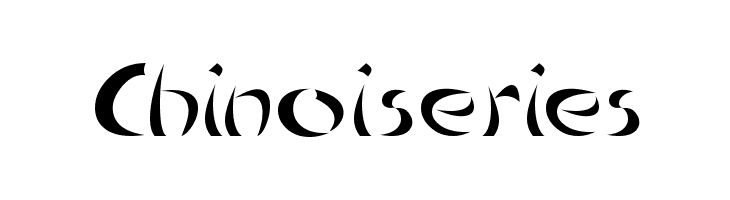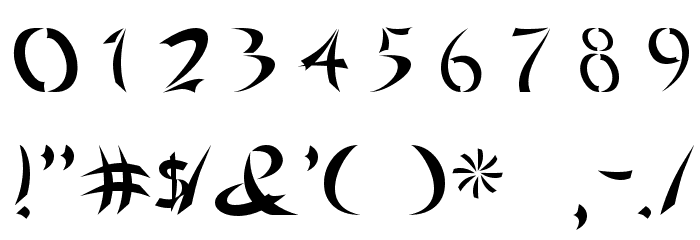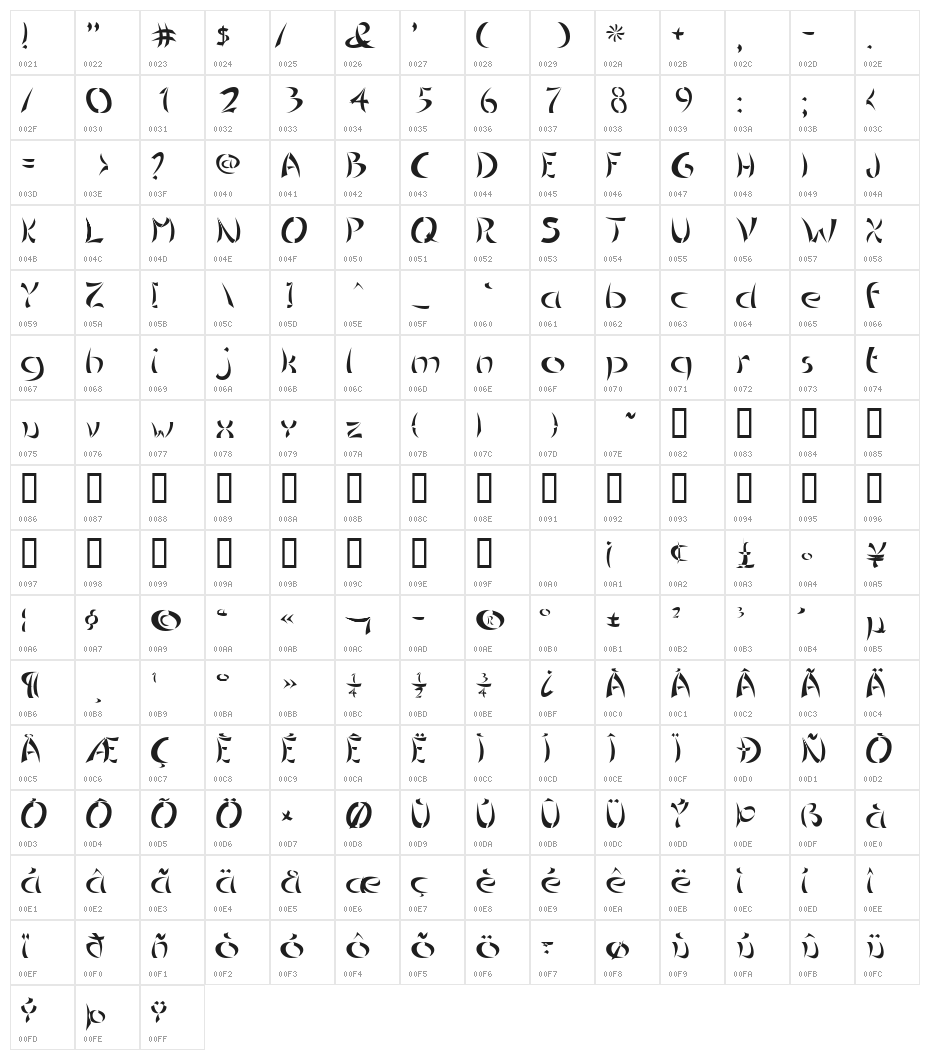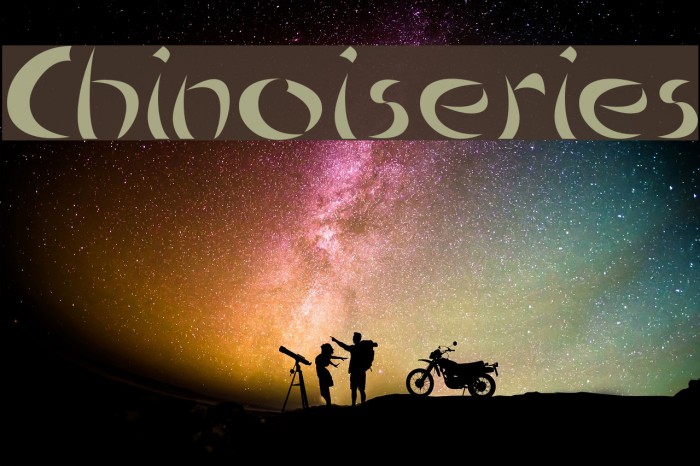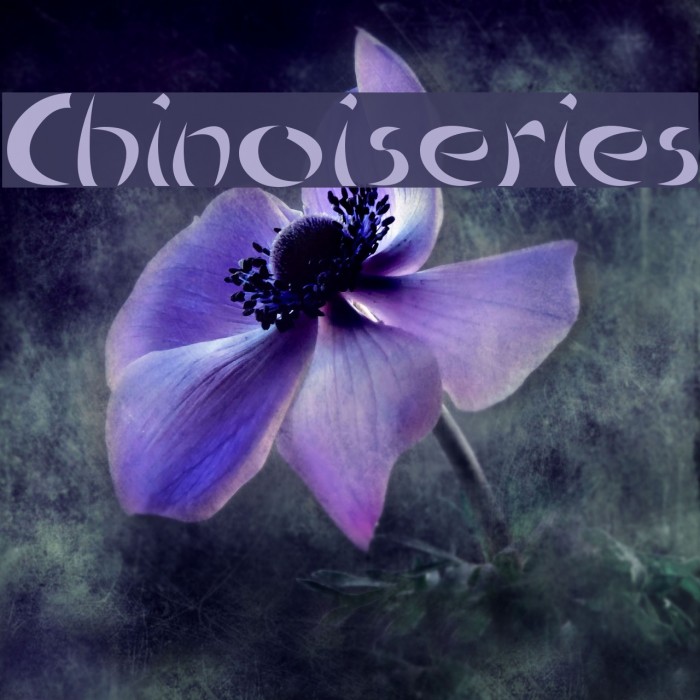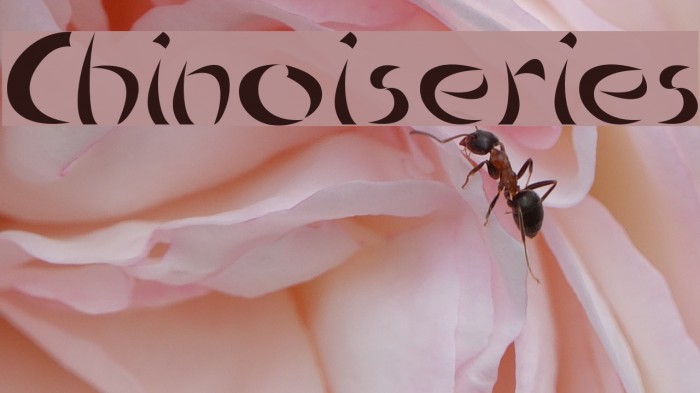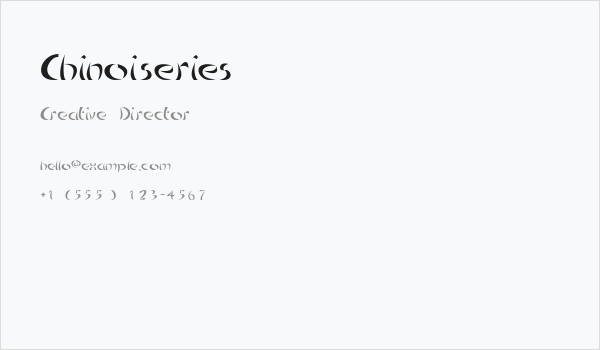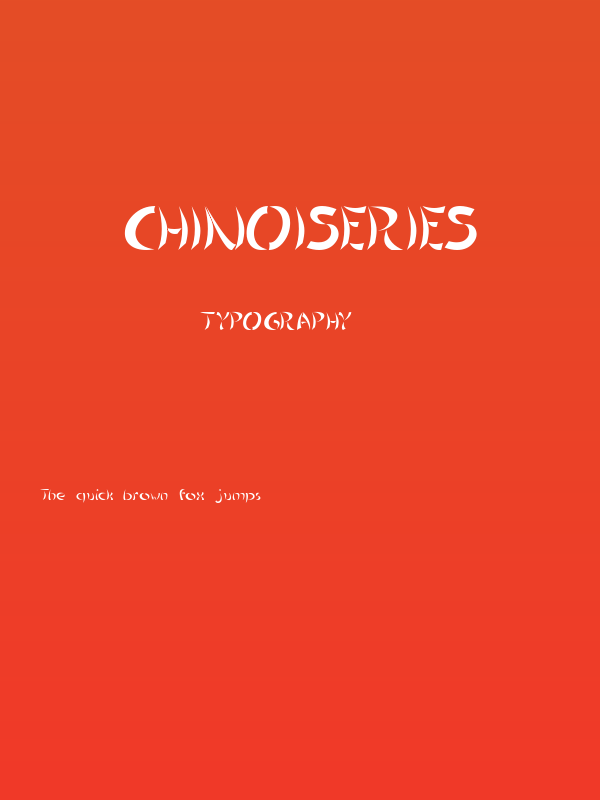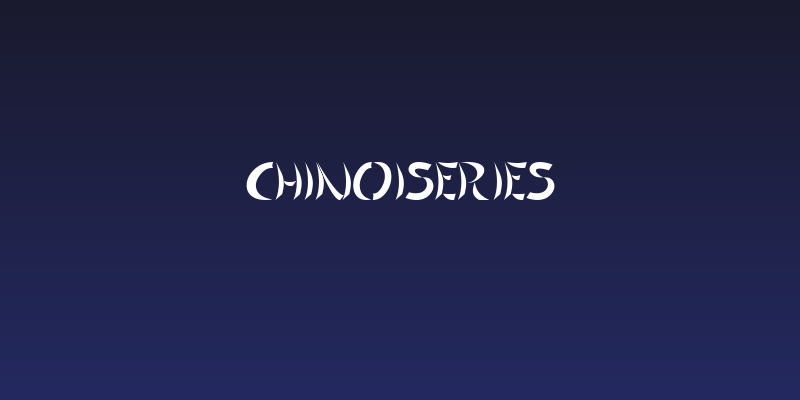
Chinoiseries Font
Chinoiseries Description
This font features a unique blend of sharp angles and smooth curves, creating an exotic and artistic appearance. The characters are designed with a high contrast between thick and thin strokes, giving them a dynamic and bold presence. The overall style is reminiscent of traditional Asian art, with a modern twist that makes it suitable for contemporary design projects. The uppercase and lowercase letters maintain a consistent style, while the numbers and special characters are crafted to complement the alphabet seamlessly. This font's distinct look makes it ideal for eye-catching designs.
| Overall Style | Modern, Exotic |
| Proposed Projects | Ideal for branding, posters, album covers, and any project seeking an artistic and exotic touch. |